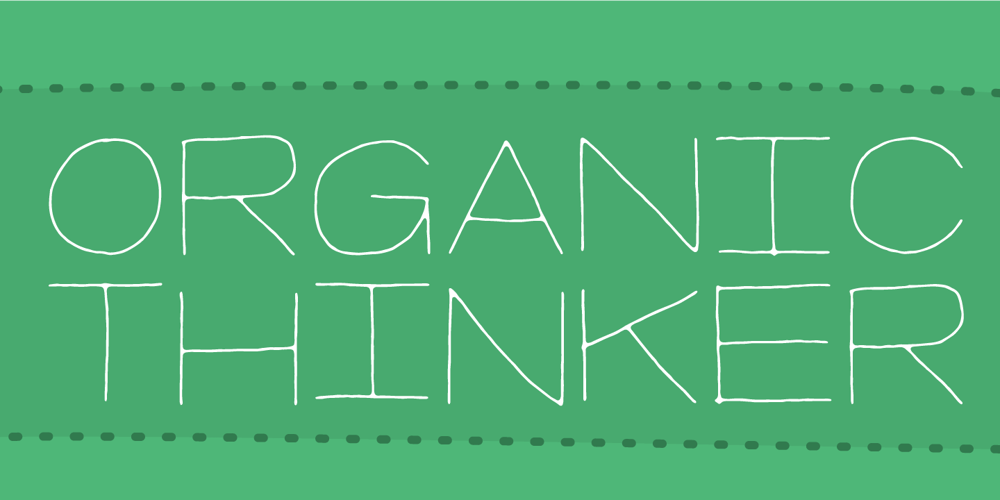
Organic Thinker
Organic Thinker font
Organic Thinker Font Family was designed by Jakob Fischer and published by Bogstav. Organic Thinker contains 4 styles and family package options. Monospaced fonts can be so dull…they are often only suitable for something like programming and other places where you need the text lined up perfectly. Well, that is not the case with Organic Thinker! Yes, it is monospaced, but it is also handmade and full of vibrant and organic life! Each letter has 5 slightly different versions, and they automatically changes as you type – makes you forget everything about programming, kerning and other dull things! ๐Ÿ™‚ Well…you are more than welcome to use Organic Thinker for your next Turbo Pascal text, actually I’d fancy that! ๐Ÿ™‚